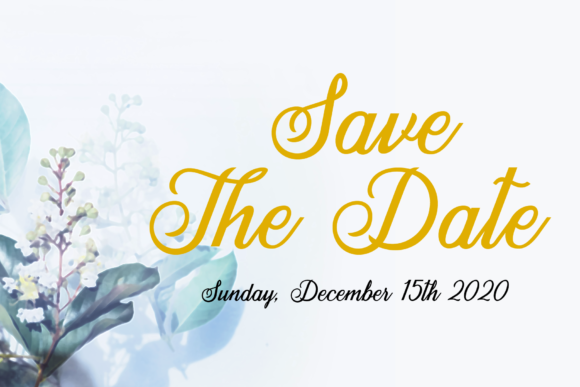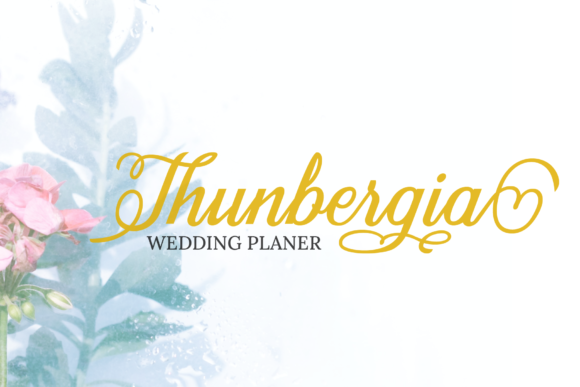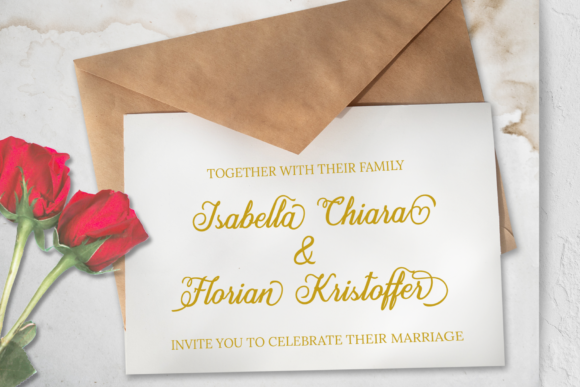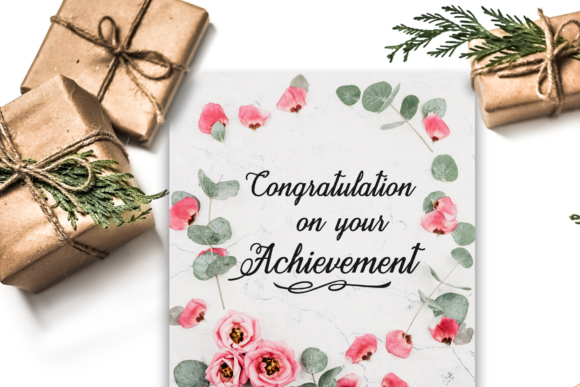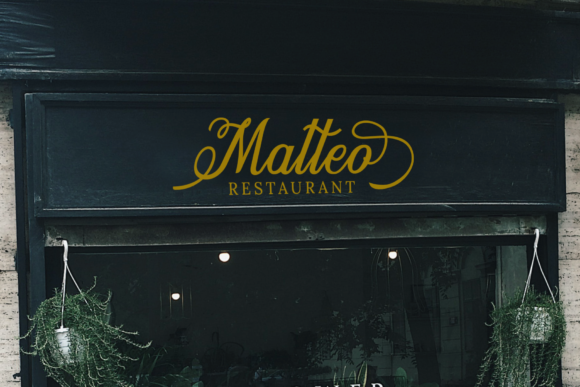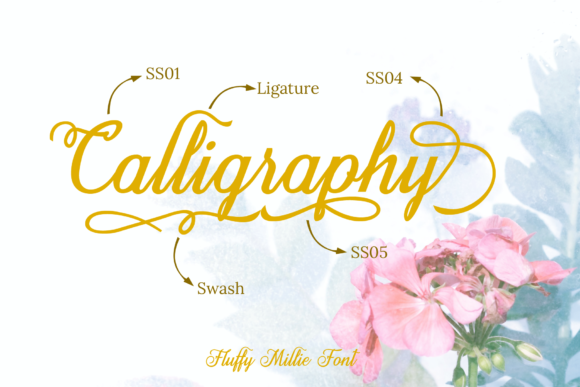
Introducing Fluffy Millie Font: The Perfect Handwritten Touch for Your Designs
Are you looking for a font that exudes charm and elegance? Look no further than Fluffy Millie Font! This beautiful handwritten font is perfect for adding a personal touch to your designs, and its versatility makes it suitable for a wide range of projects.
What Makes Fluffy Millie Font So Special?
Fluffy Millie Font feels equally charming and elegant, making it an excellent choice for designs that require a sophisticated and whimsical touch. Its unique and flowing script style is sure to capture the attention of your audience and leave a lasting impression.
Ideal for Various Design Projects
Fluffy Millie Font looks stunning on various design projects, including:
- Wedding invitations: Add a touch of romance and whimsy to your wedding invitations with Fluffy Millie Font.
- Thank you cards: Express your gratitude with beautifully designed thank you cards featuring Fluffy Millie Font.
- Quotes: Make your quotes stand out with the elegant and charming Fluffy Millie Font.
- Greeting cards: Create stunning greeting cards for special occasions, such as birthdays, anniversaries, and holidays.
- Logos: Add a personal touch to your logos and make them more memorable with Fluffy Millie Font.
- Business cards: Elevate your business cards with the sophisticated and elegant Fluffy Millie Font.
Fluffy Millie Font is PUA encoded, which means you can access all of the glyphs and swashes with ease. This feature makes it simple to customize your designs and add unique touches to your projects.
Why Designers and Crafters Love Fluffy Millie Font
Designers and crafters adore Fluffy Millie Font for its:
- Unique and elegant script style
- Versatility and suitability for various design projects
- PUA encoding for easy access to glyphs and swashes
- Charming and whimsical touch that adds personality to designs
Tips for Using Fluffy Millie Font Effectively
To get the most out of Fluffy Millie Font, consider the following tips:
- Pair it with complementary fonts to create visual interest
- Use it for headings and titles to add a touch of elegance
- Experiment with different colors and textures to enhance the font’s charm
- Take advantage of the PUA encoding to customize your designs
Fluffy Millie Font is a beautiful and versatile handwritten font that can elevate your designs and add a touch of charm and elegance. With its PUA encoding and suitability for various design projects, it’s an excellent choice for designers and crafters looking to create stunning and unique designs. Try Fluffy Millie Font today and experience the difference it can make in your designs!